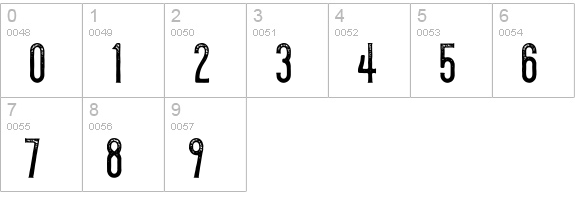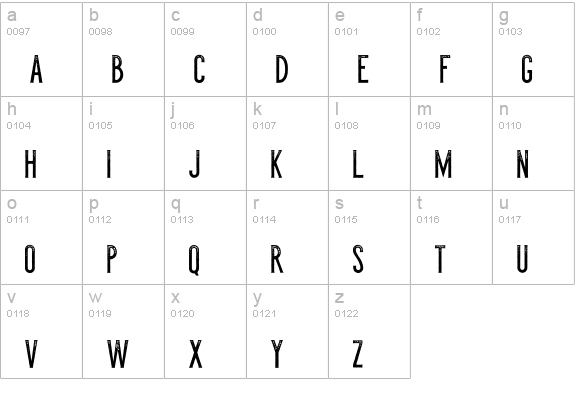
BarberinoRG Regular Font Details
BarberinoRG Regular is the standard, neutral variant in the BarberinoRG typeface family \xE2\x80\x94 well suited to general body text, paragraphs, and standard typographic work.
BarberinoRG Regular font is a stylish and modern typeface that exudes elegance and sophistication. With its clean lines and sleek design, this font is perfect for a wide range of design projects, from branding to editorial design. The BarberinoRG Regular font is versatile and can be used for both headlines and body text, making it a great choice for any graphic design project. The best part is that BarberinoRG Regular font is available for free download at FontsMarket.com. This means that you can easily access this high-quality font without any cost, making it a valuable addition to your font collection. Don't miss out on the opportunity to enhance your designs with the timeless beauty of BarberinoRG Regular font, available for free at FontsMarket.com.